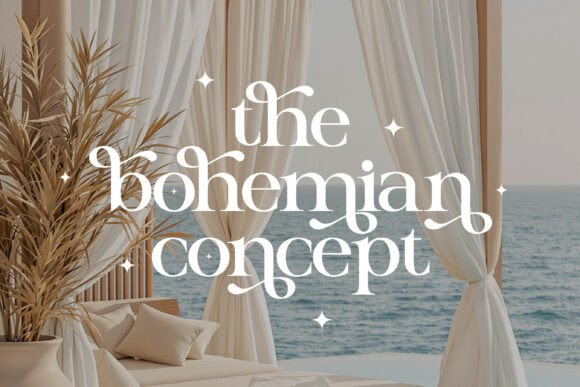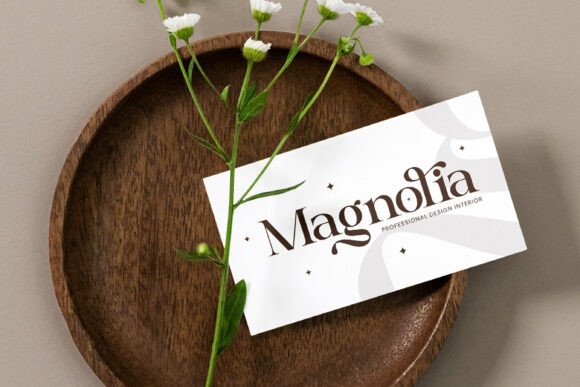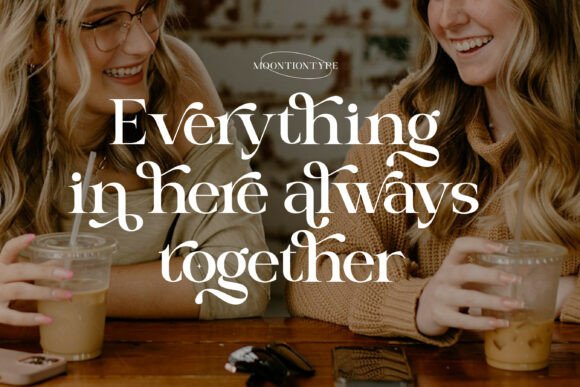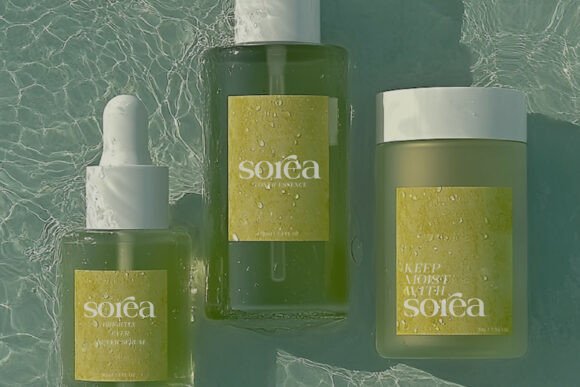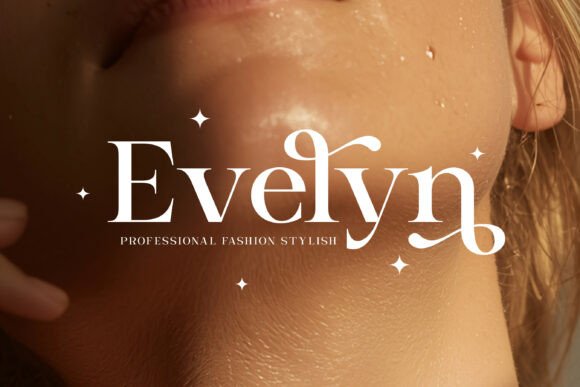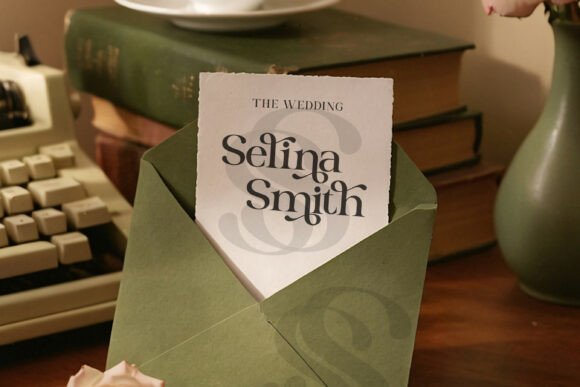
Introduction to Melnora Font Font
Fonts play a crucial role in design, and the Melnora Font font is a typeface that brings both character and versatility to any project. Whether you’re working on a branding project, a website, or a print design, the Melnora Font font offers a unique style that can elevate your work.
Bring elegance and sophistication to your creative projects with Melnora, a modern high-contrast serif font designed with graceful curves, luxurious details, and stylish editorial aesthetics.
Perfect for fashion branding, beauty products, wedding invitations, logo design, magazines, social media templates, and premium packaging Melnora combines timeless serif elegance with a contemporary feminine touch, making it ideal for creators who want their designs to feel classy, refined, and visually striking.
The Melnora Font font is more than just a typeface – it’s a design tool that helps you communicate your message with style and clarity. Its unique character set and versatile design make it suitable for a wide range of applications, from elegant invitations to bold headlines.
With its carefully crafted letterforms and balanced proportions, the Melnora Font font ensures readability and visual appeal across all mediums.
What makes Melnora Font font special?
The Melnora Font font stands out with its unique design, exceptional readability, and versatility across various design applications.